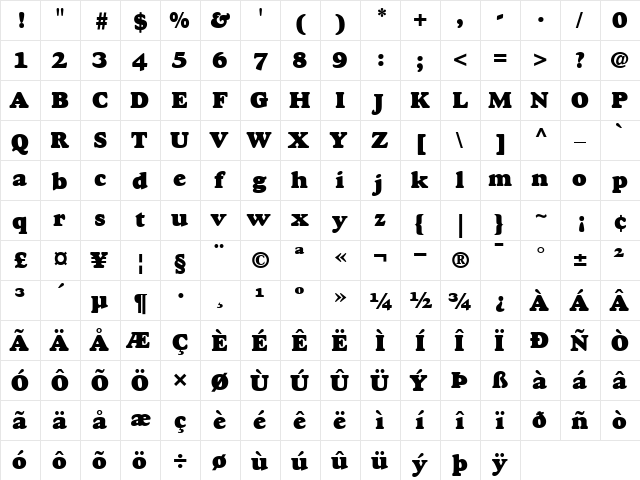
Goudyface-Heavy Heavy
Design Context for Goudyface-Heavy Typeface
Goudyface-Heavy offers clean, dependable letterforms without strong stylistic allegiance, making it a practical choice for designers who need flexibility.
Pro Tip: Pair Goudyface-Heavy with a font of contrasting weight or personality to build a more expressive typographic hierarchy.